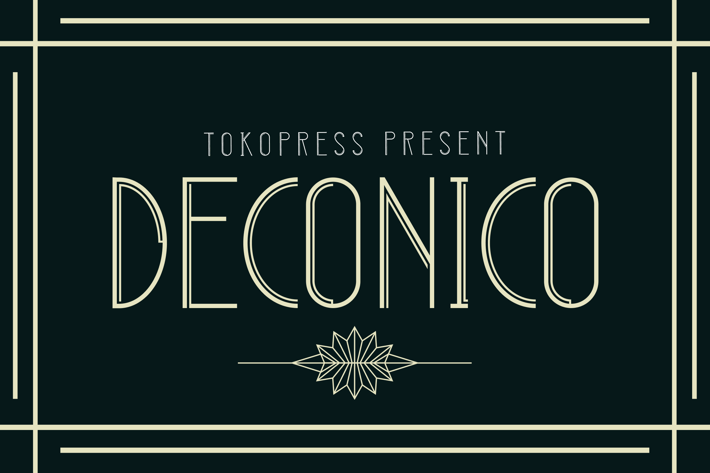
DECONICO - art deco font
DECONICO - Art Deco Font
Looking for a long-tail art deco font with elegant proportions and modern usability? DECONICO is a geometric-inspired typeface with crisp symmetry, elongated characters, and timeless sophistication. Its refined line weight and structured letterforms exude a bold yet graceful personality—ideal for projects that demand both vintage charm and upscale impact. Think of it as the typeface equivalent of a Gatsby-era cocktail lounge, stylized for today’s high-end design needs.
This display font blends the glamour of 1920s aesthetics with clean, editorial-ready architecture—a perfect fit for wedding invitations, boutique logos, magazine titles, or any design needing classical elegance with geometric consistency.
DECONICO shines in luxurious branding, wedding stationery, fashion editorials, architectural posters, and upscale interior design presentations. It invites the eye with its vertically stretched structure and sharp symmetry—creating instant recognition and authority in high-end market segments. Whether you're designing a gala event invitation or curating an elegant brand identity, DECONICO helps you communicate distinction and classic poise with every letter.
Key Features
Why Designers Love DECONICO :
- Timeless Elegance: Tall, thin proportions echo Art Deco glamour with modern precision.
- Geometric Harmony: Balanced letter spacing and alignment for polished layouts.
- High Contrast Look: Creates hierarchy and visual interest in headlines and logos.
- All-Caps Power: A full uppercase set for maximum impact and minimal clutter.
- Luxury-Ready Aesthetic: Perfect for premium packaging, jewelry branding, and architecture portfolios.